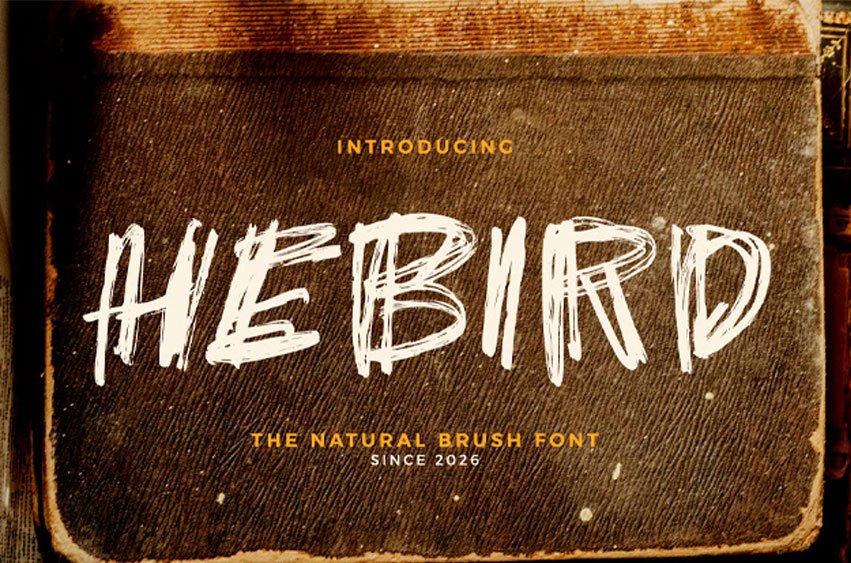
Hebird Font is a natural brush font crafted with organic strokes and authentic hand-painted character. Inspired by the fluid movement of real brush lettering, this font delivers a smooth yet textured appearance that feels lively and expressive. Its balanced structure and natural rhythm create a warm and artistic personality while maintaining clear readability.